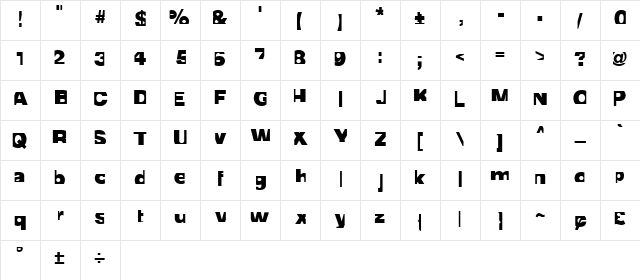
Cropper Regular
Design Context for Cropper Typeface
Cropper is a composed and adaptable typeface that performs quietly and consistently across a wide range of design contexts.